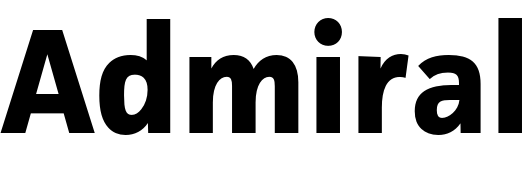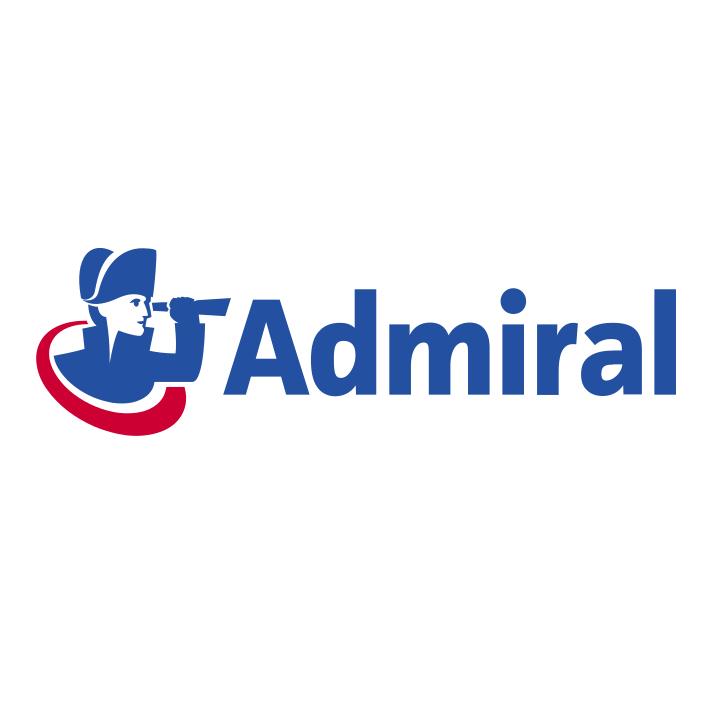
Admiral Insurance Font
FinanceAdmiral is a UK-based insurance company that offers a range of insurance products, including car, home, and travel insurance.
Admiral's logo is created with Facit Bold font, which is a modern sans-serif typeface designed by Tim Ahrens. You can find more details about the font here.